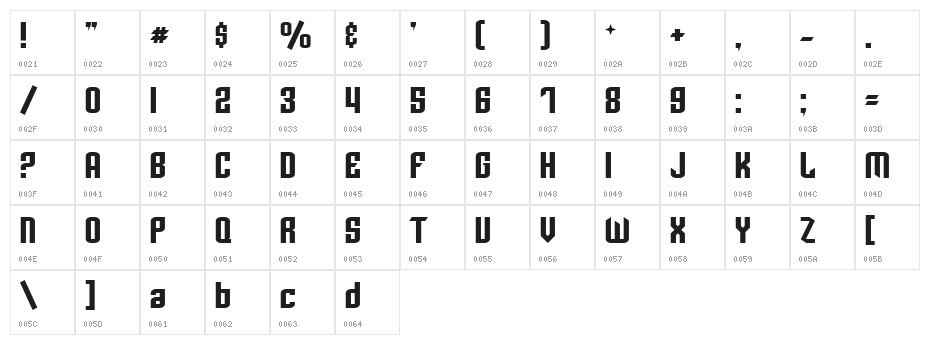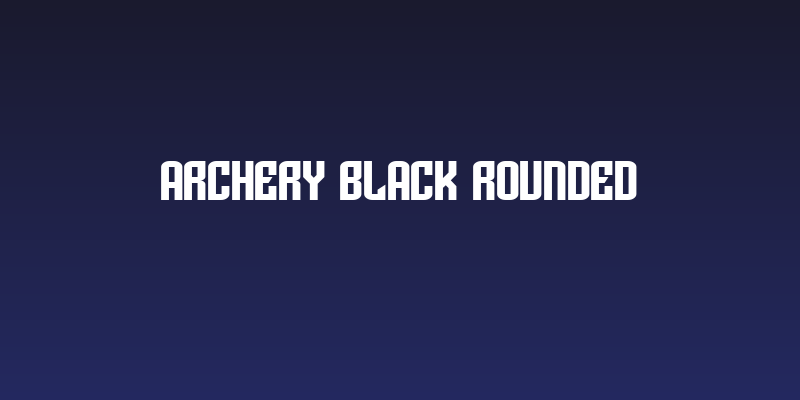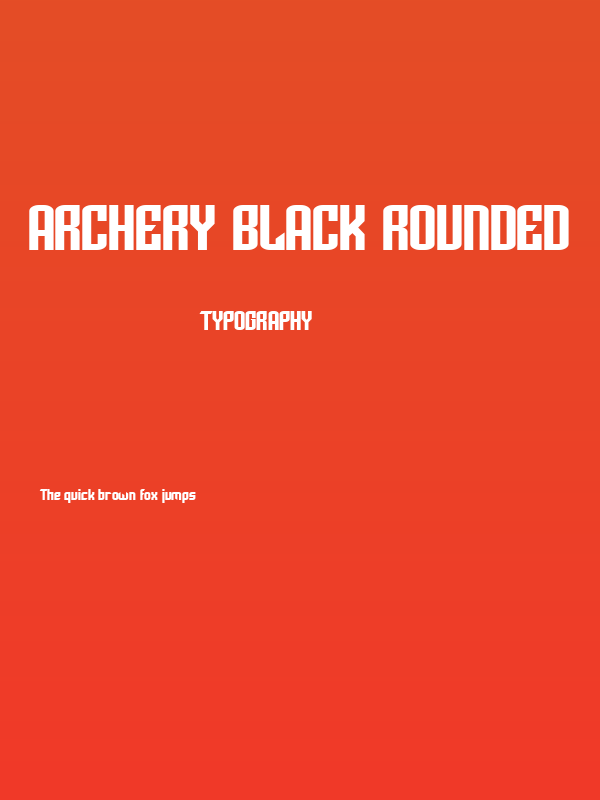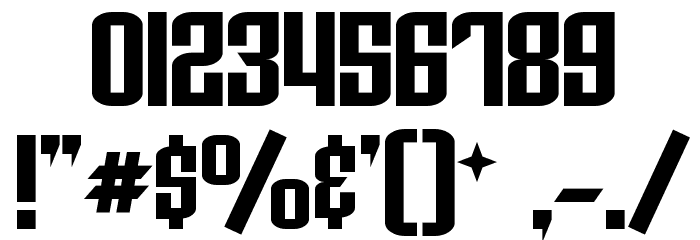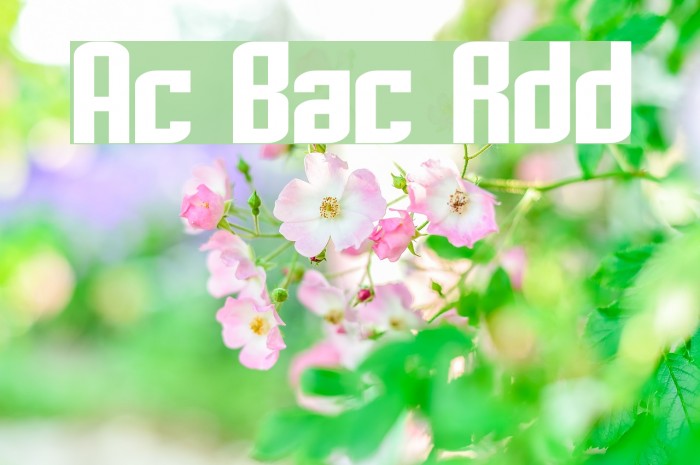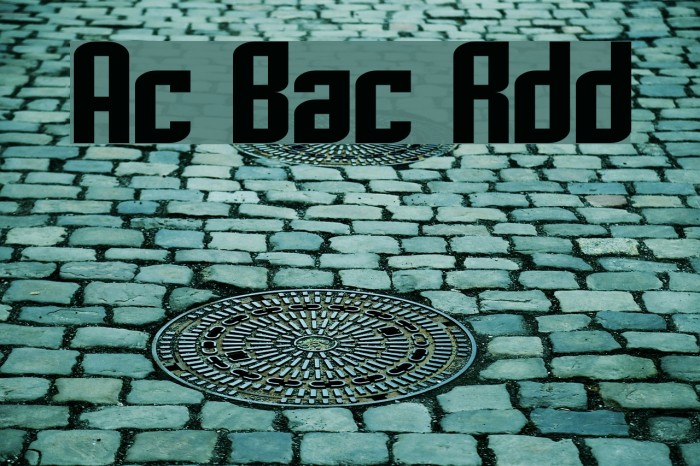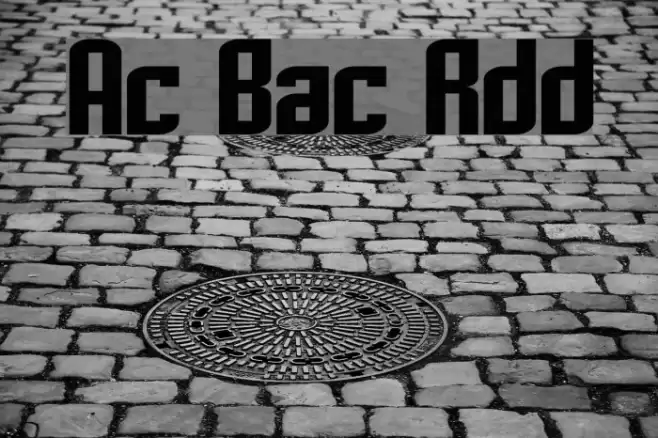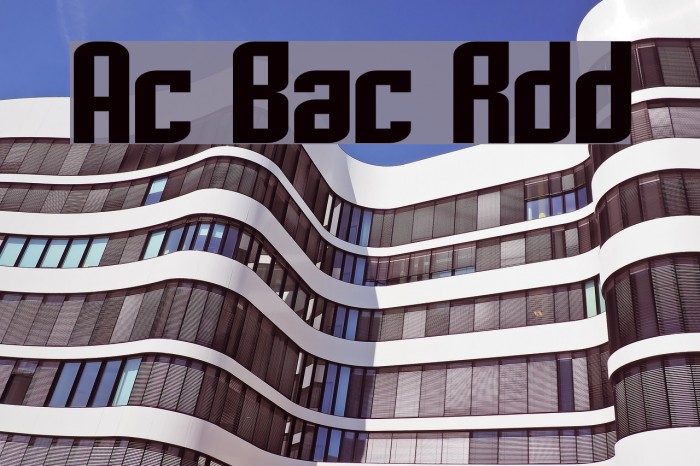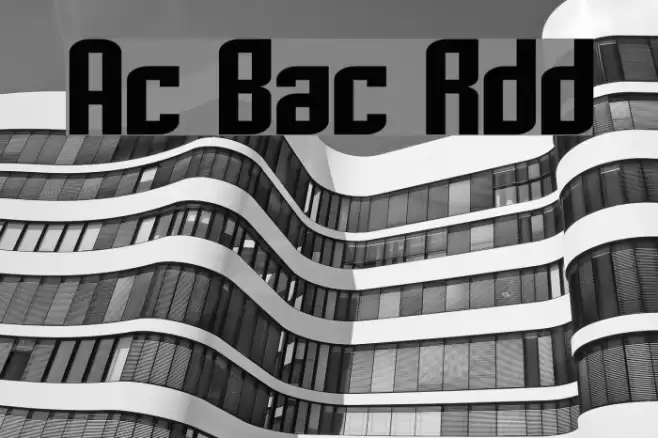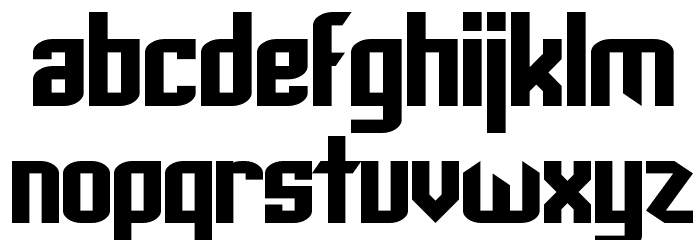
Archery Black Rounded Font
Archery Black Rounded Description
This font features a bold and geometric design with a strong presence. The characters are constructed with thick, uniform strokes that give it a robust and impactful appearance. The rounded edges soften the overall look, adding a touch of approachability to its otherwise solid and structured form. The uppercase and lowercase letters maintain a consistent style, with angular cuts and a modern aesthetic. The numerals and special characters are equally bold, ensuring readability and uniformity across different uses. This font is ideal for making a statement in any design project, combining strength with a touch of modern flair.